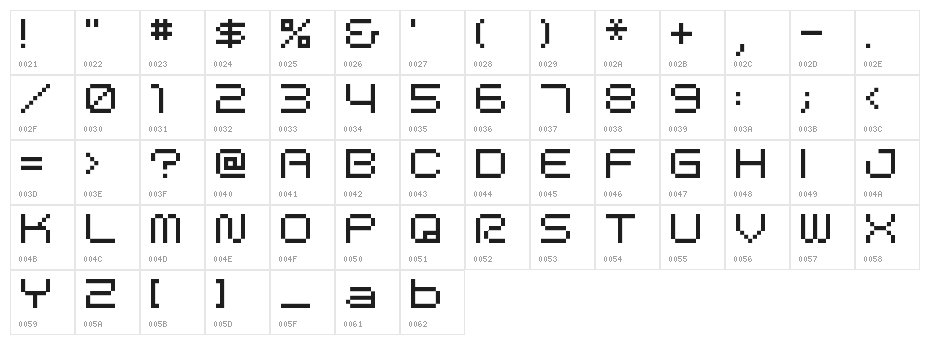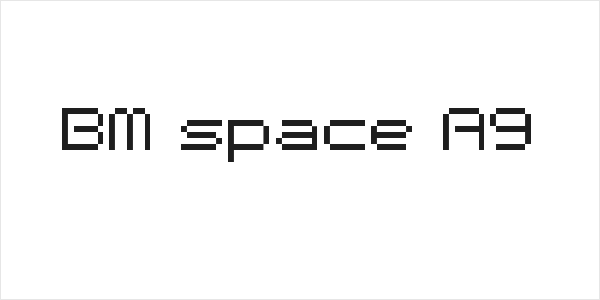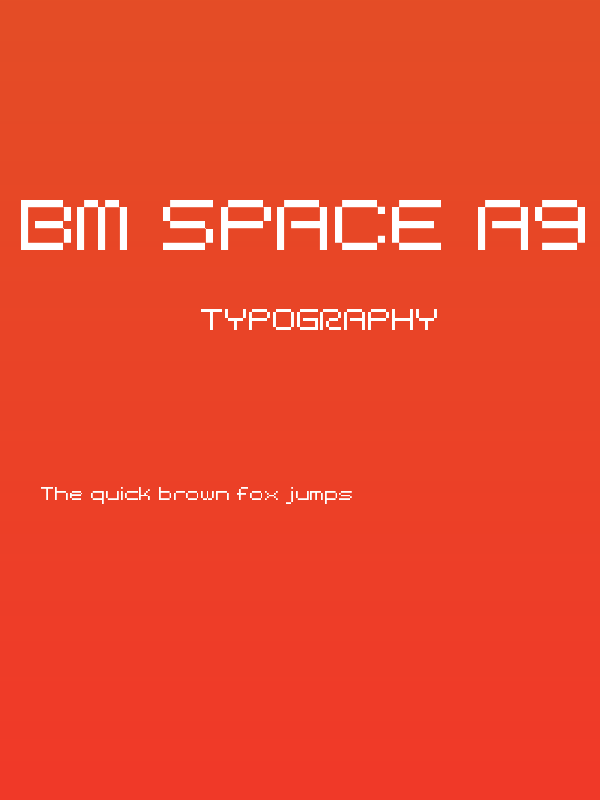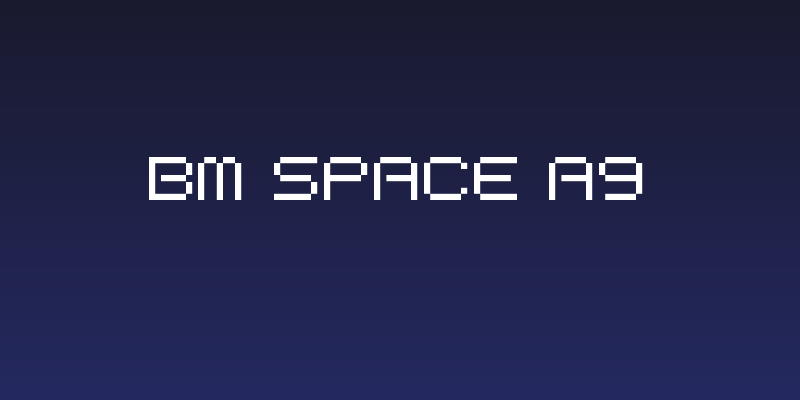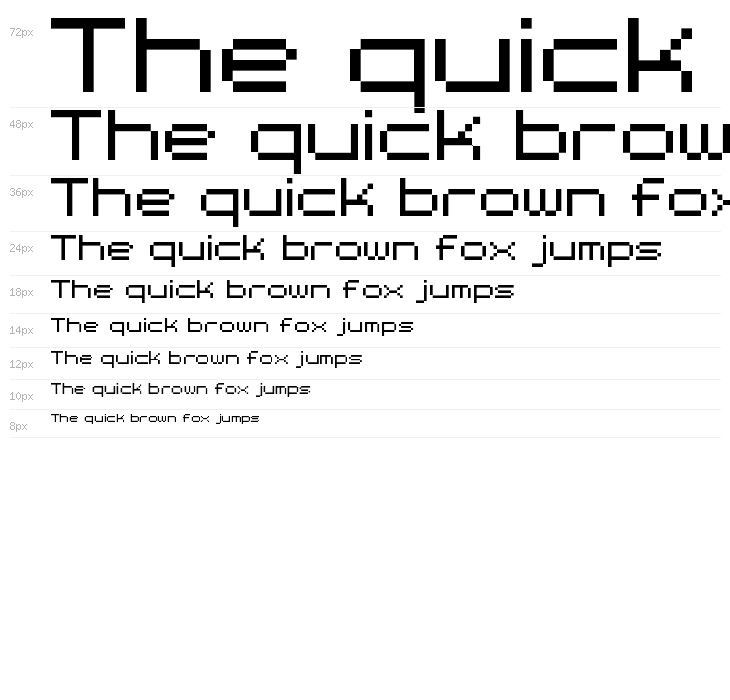
BM space A9 Font
BM space A9 Description
This font features a pixelated, blocky design reminiscent of early digital displays and retro video games. Each character is constructed with a grid-like structure, giving it a distinctly geometric and modular appearance. The uniformity in stroke width across all characters contributes to a cohesive and consistent look. The uppercase and lowercase letters maintain a similar height, enhancing readability while preserving the font's unique style. Numbers and special characters follow the same design principles, ensuring a harmonious visual experience. This font's nostalgic aesthetic makes it ideal for projects seeking a vintage or tech-inspired theme.
| Proposed Projects | Ideal for retro video game graphics, tech-themed posters, digital art, and nostalgic branding. |